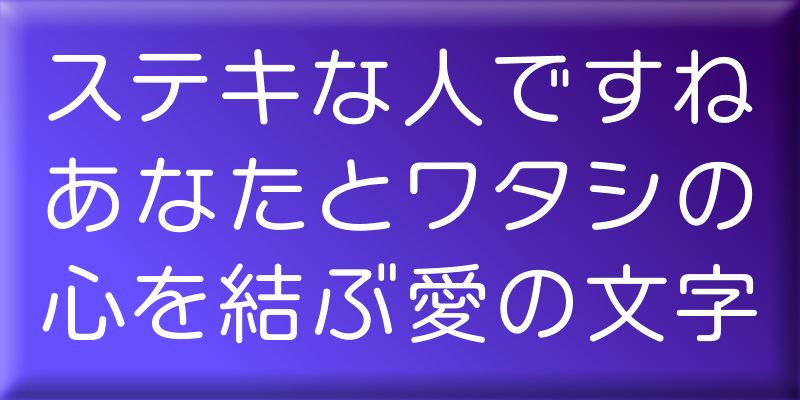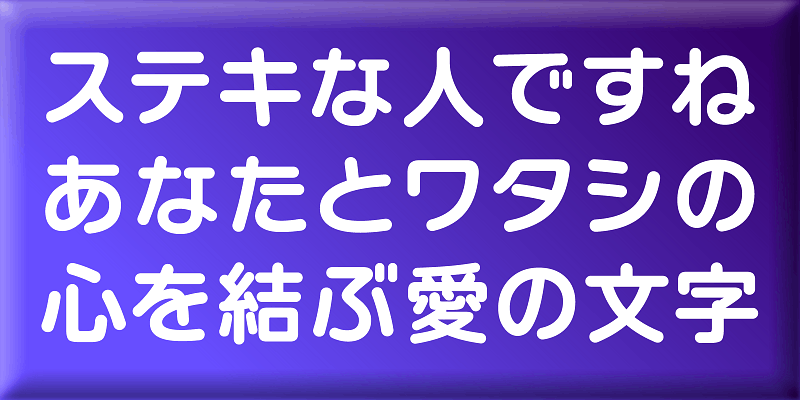
NitalagoRera-3 combines “Nitalagomaru”, a handsome rounded Gothic kana design, with “Rera”, a simple rounded Gothic typeface. Its simple and linear character shapes increase legibility and readability.
Through typeface designs, we aim to convey a meaning beyond the textual content. Typefaces that allow users to clearly convey their full meaning. Typefaces that both typesetters and readers will enjoy. These are the kind of typefaces that we aim to create.